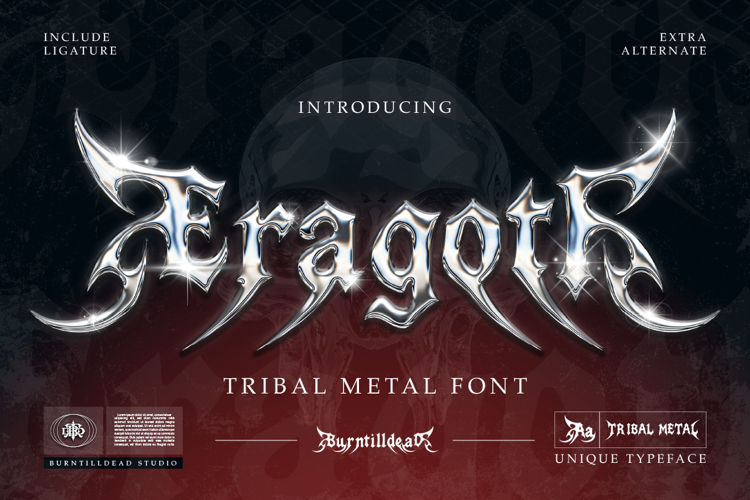
Eragoti - Tribal Metal Font
Eragoti is a dark tribal metal typeface crafted to deliver an aggressive, mystical, and powerful visual impact. Inspired by extreme metal aesthetics, ancient symbols, and sharp ornamental forms, this font features razor-edged strokes, dramatic curves, and bold silhouettes that instantly command attention.
Every character is designed with strong contrast and distinctive spikes, creating a raw yet controlled look that feels both brutal and artistic. Eragoti comes with multiple uppercase alternates, allowing you to mix styles and build custom lettering that feels organic, chaotic, and unique, perfect for pushing your visuals beyond standard typography.
This typeface shines in bold display use. It’s ideal for metal band logos, album covers, music festival posters, dark fantasy artwork, gaming titles, horror visuals, apparel graphics, and branding that demands intensity and attitude. Eragoti works best at large sizes, where its details can fully stand out.